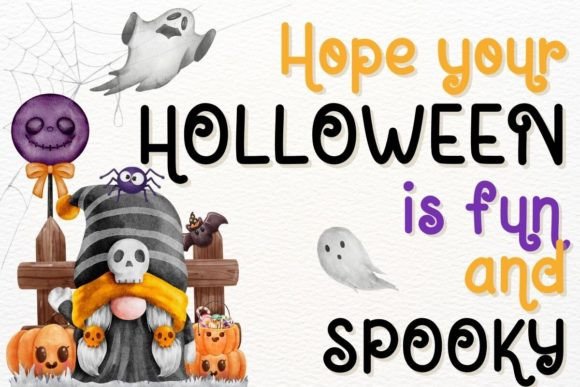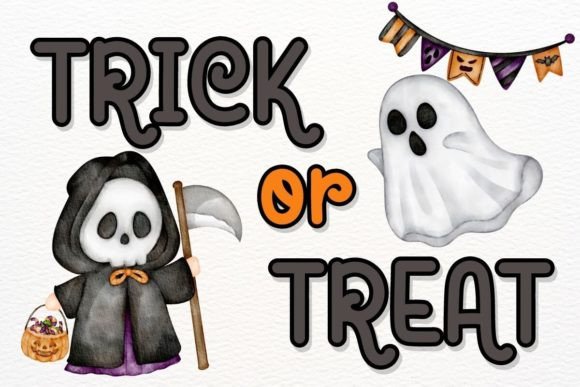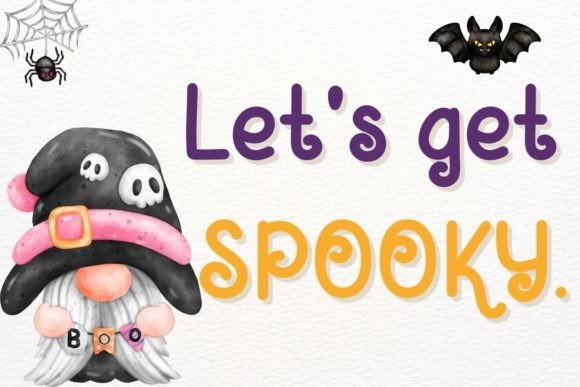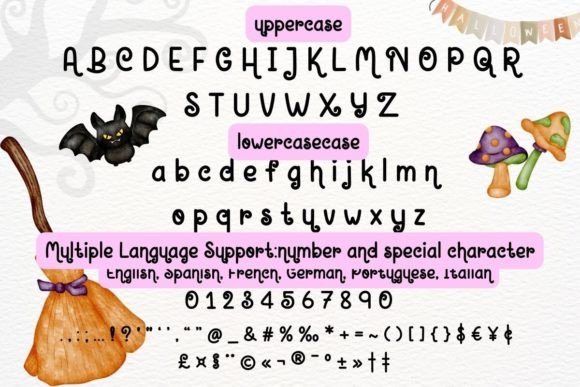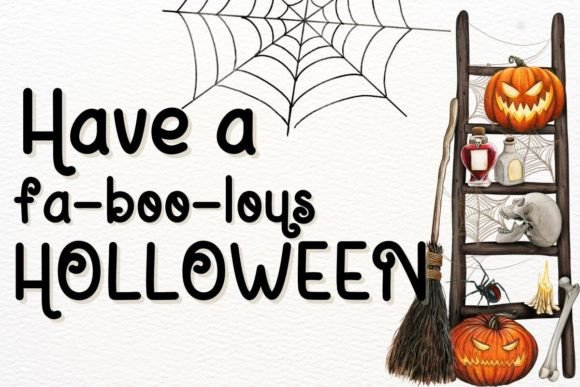
Introduction to Magical Halloween Font
Imagine your designs coming alive with the eerie spirit of “MAGICAL HALLOWEEN FONT.
” From invitations to spooky posters, it’s like having a buddy who knows how to give your work that ghostly allure So, if you’re ready to give your creations a touch of shiver-inducing style, partner up with “MAGICAL HALLOWEEN FONT” and let the haunting fun begin.
Key Features of Magical Halloween Font
Why Choose Magical Halloween Font?
Magical Halloween Font offers exceptional quality and versatility, making it a valuable addition to your design toolkit. Whether you’re creating for personal projects or commercial use, Magical Halloween Font delivers professional results.